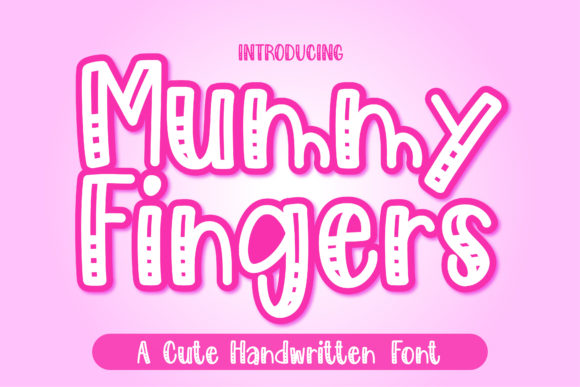
Embark on a typographic adventure with Mummy Fingers Font, a display font that captures the essence of playfulness and fun. This captivating font, crafted by the talented GoodMoodType, blends modern aesthetics with a touch of whimsy, promising to infuse your designs with a magical aura.
Mummy Fingers Font possesses an enchanting personality, inviting you to explore a world of limitless creativity. Its unique style adds a spark of delight to T-shirt designs, posters, branding projects, and more. Unleash your imagination and let Mummy Fingers Font guide you through a realm of visual storytelling.
Immerse yourself in the world of Mummy Fingers Font and discover the boundless possibilities it offers. Its carefully crafted characters dance and twirl, creating a visual symphony that captivates the eyes and ignites the imagination. With its playful yet sophisticated style, Mummy Fingers Font adds a touch of whimsy to any design project, making it the perfect choice for those seeking a font that exudes joy and individuality.
Stand out from the crowd with Mummy Fingers Font and elevate your designs to new heights. Its distinct and memorable appearance ensures that your creations will leave a lasting impression on your audience. Embrace the magic of Mummy Fingers Font and embark on a typographic journey that will leave you spellbound.